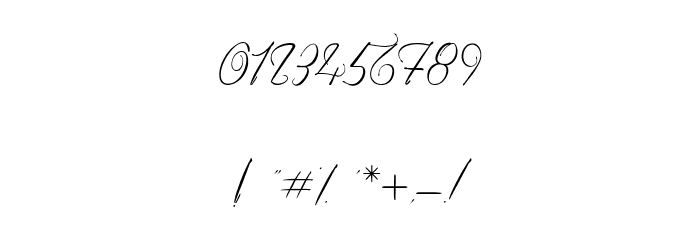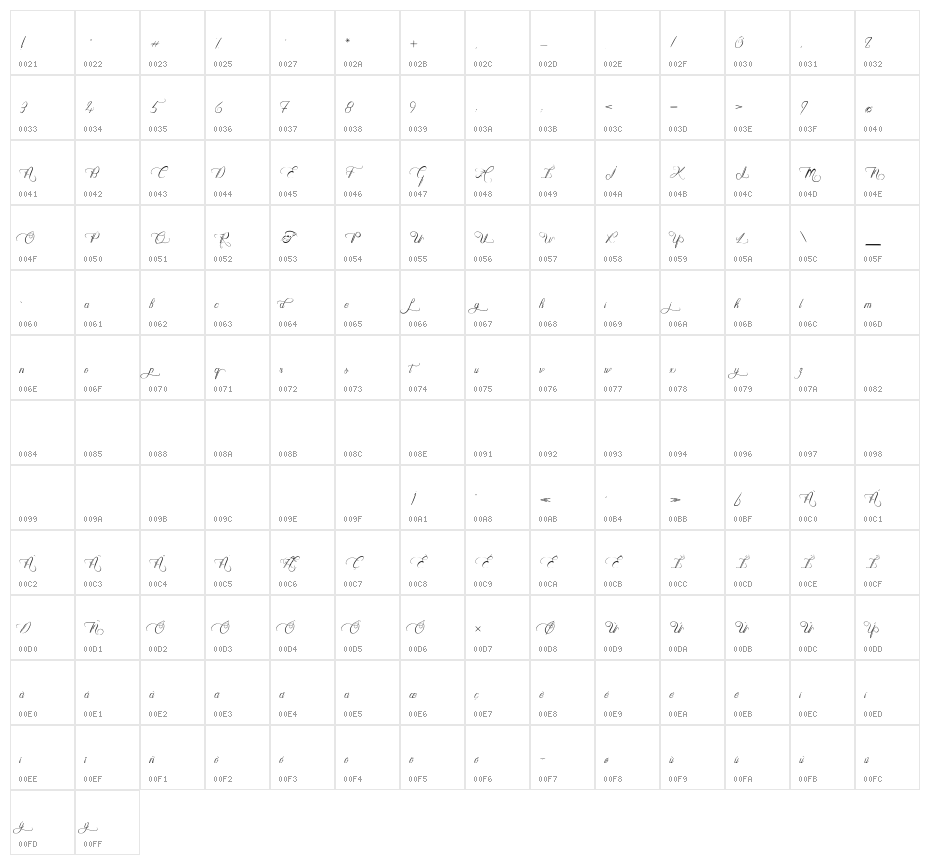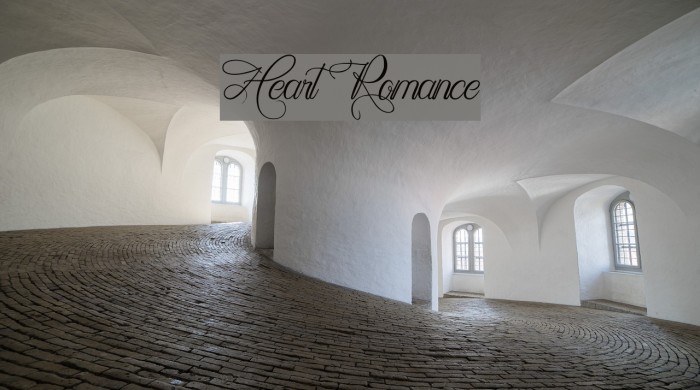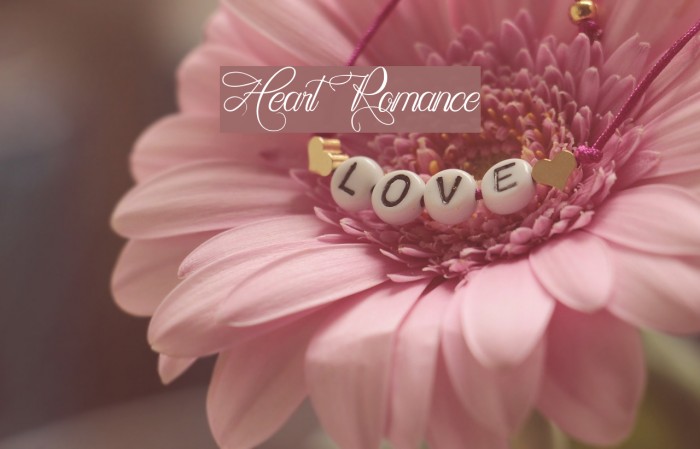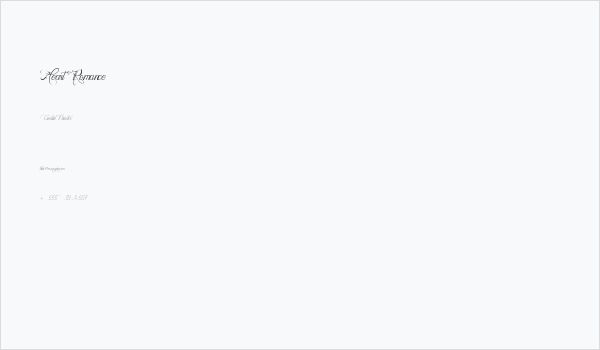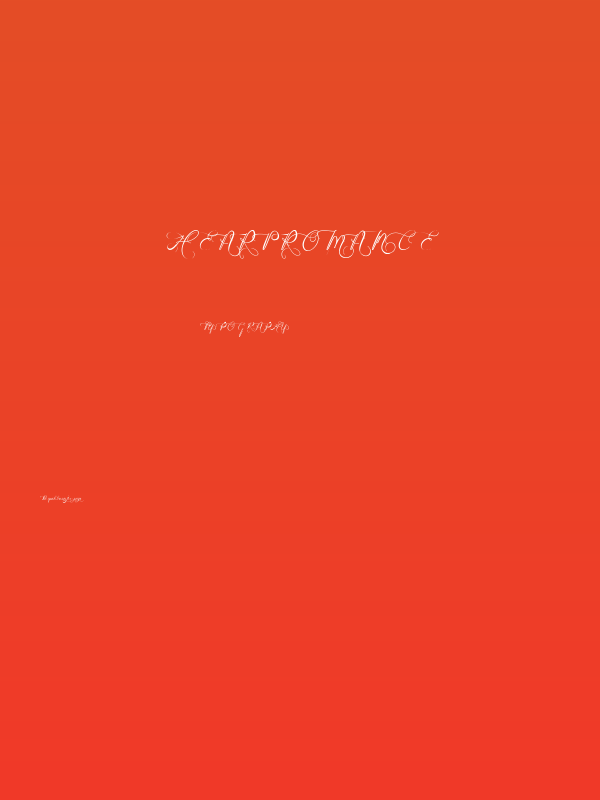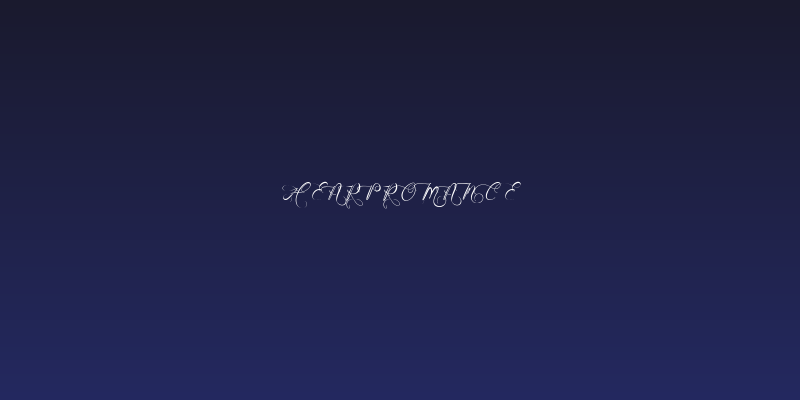
Heart Romance Font
Heart Romance Description
This font exudes elegance and romance with its intricate, flowing script style. Each letter is adorned with delicate swirls and flourishes, creating a sense of movement and grace. The uppercase letters are particularly ornate, with elaborate loops and curves that give a sense of grandeur. The lowercase letters maintain the same fluidity, though they are slightly more restrained, ensuring readability while still retaining a decorative flair. The numbers and special characters are designed to match the overall aesthetic, with consistent embellishments that tie the entire set together. This font is perfect for creating a sophisticated and romantic atmosphere.
| Overall Style | Romantic, Elegant, Decorative |
| Proposed Projects | Ideal for wedding invitations, romantic greeting cards, elegant branding, and decorative quotes. |